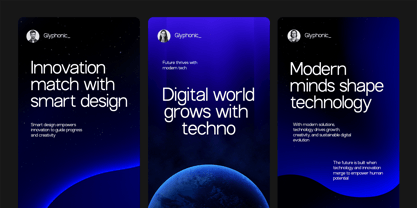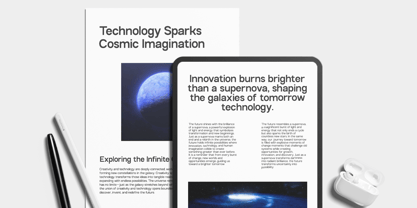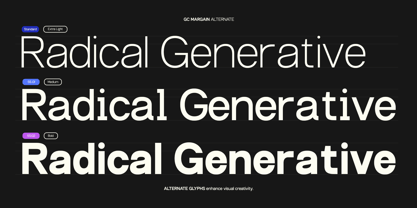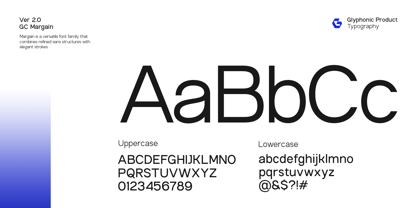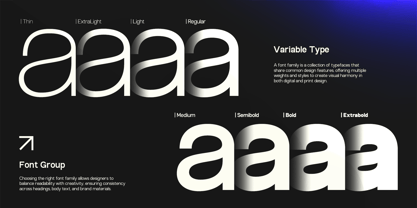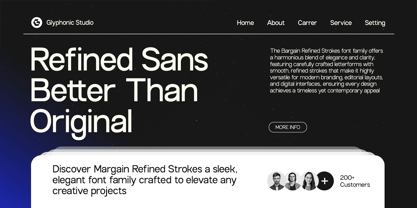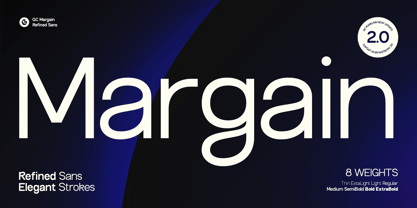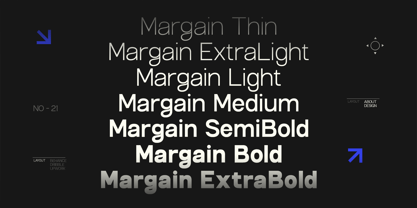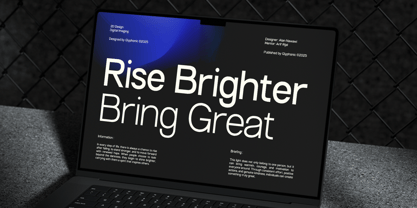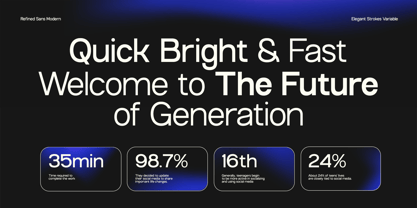
GC Margain
by Onyx Studio
The GC Margain Font Family was designed by Muhammad Hafiizh Solana and published by Onyx Studio. GC Margain contains 8 styles and family package options. More about this family
GC Margain is an expanded sans-serif typeface family that combines modern simplicity with functional clarity. Upgraded from its original version, GC Margain now comes as a complete family with multiple weights and styles, offering even greater flexibility for your design projects.Built for versatility and readability, it’s perfectly suited for headlines, branding, logos, packaging, editorial layouts, and digital interfaces—crafted to deliver a clean and confident visual message across all media. With its low-contrast strokes, generous spacing, and balanced proportions, GC Margain maintains a sleek, neutral, and timeless appearance. The extended family range makes it adaptable for bold statements, refined text, and everything in between—making it an ideal choice for modern design systems, minimalist layouts, tech branding, and everyday creative projects. Features: Multiple Weights & Styles (Family Pack) Uppercase & Lowercase Ligatures & Stylistic Alternates Numbers & Punctuation Multilingual Support (170+ Languages) Bring clarity, strength, and modern elegance to your design with the updated GC Margain Family.
Designers: Muhammad Hafiizh Solana
Foundry: Onyx Studio